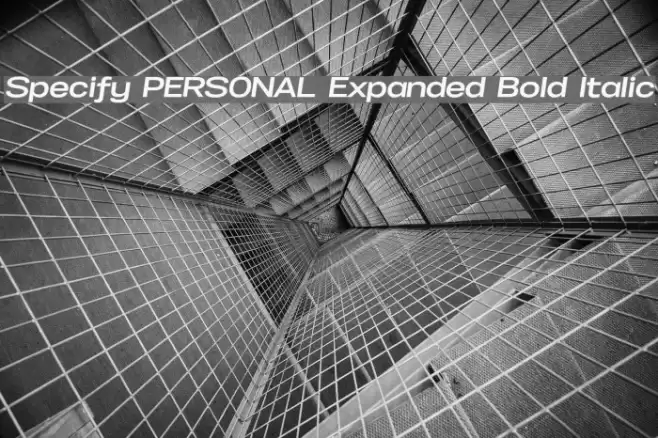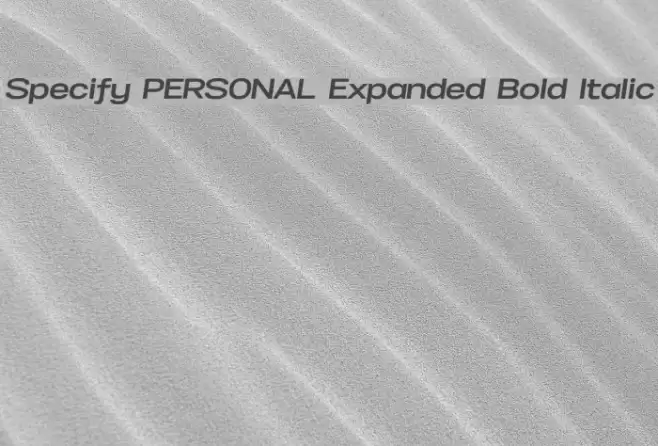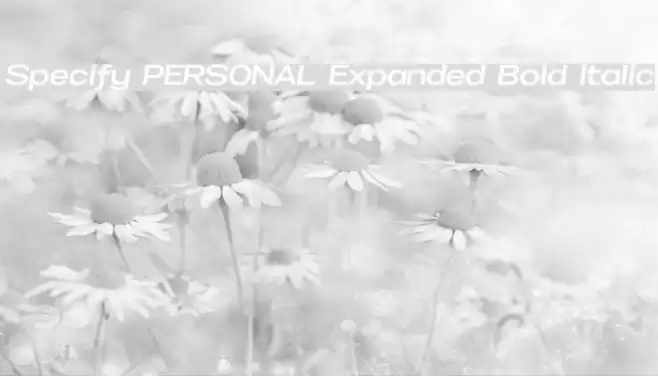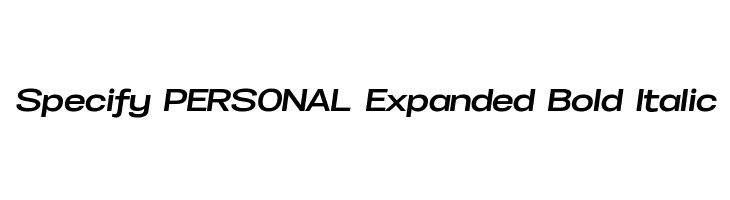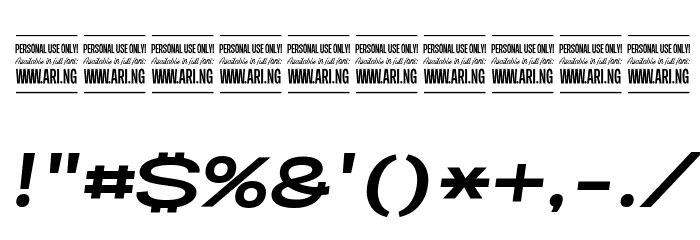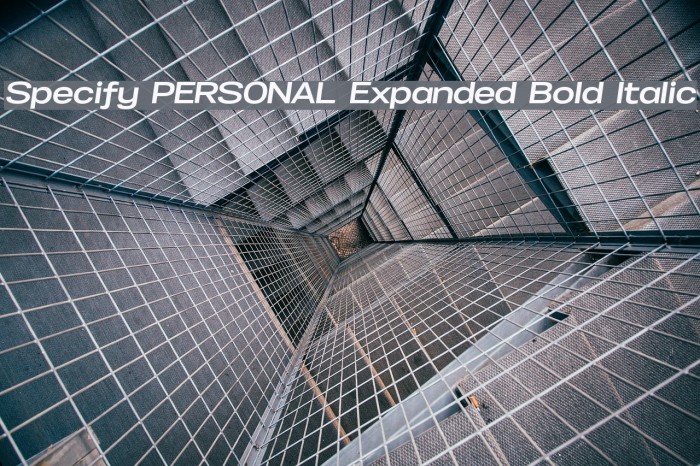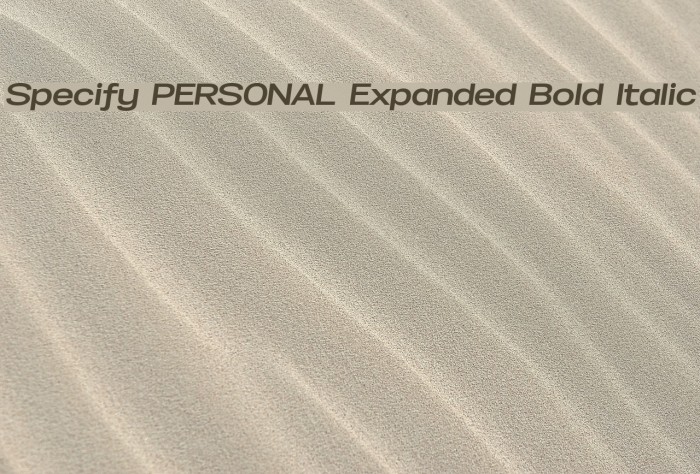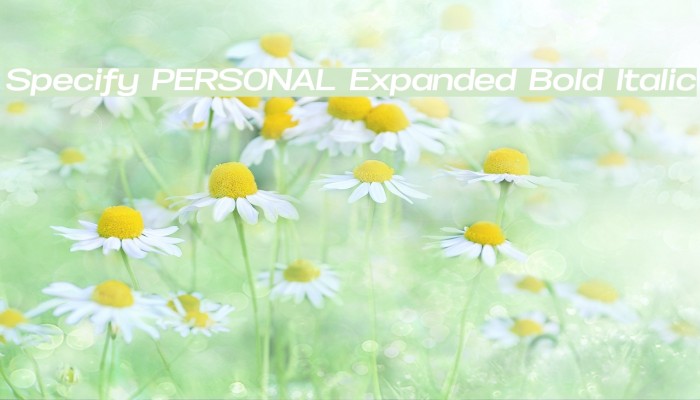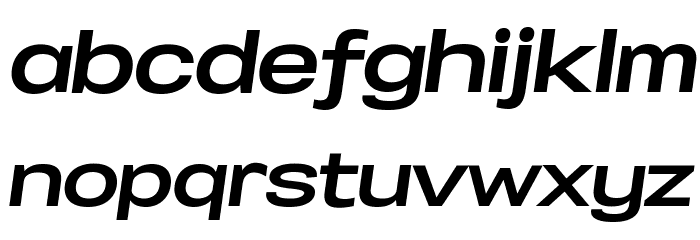
Specify PERSONAL Expanded Bold Italic Font
Specify PERSONAL Expanded Bold Italic Description
This font features a bold and italicized style with an expanded width, giving it a strong and dynamic presence. The characters are sleek and modern, with a slight slant that adds a sense of movement and urgency. The uppercase letters are tall and commanding, while the lowercase letters maintain a consistent flow. The numerals are clear and distinct, making them easy to read. Special characters are well-defined, adding versatility to the font's use. Overall, this typeface is ideal for making a bold statement in any design project.
A bold, italicized, and expanded font with a modern and dynamic style from Uncategorized fonts.
- Proposed Projects: Ideal for branding, advertising, headlines, and any project requiring a strong visual impact.
- Use Case: Headlines, Logos, Advertising